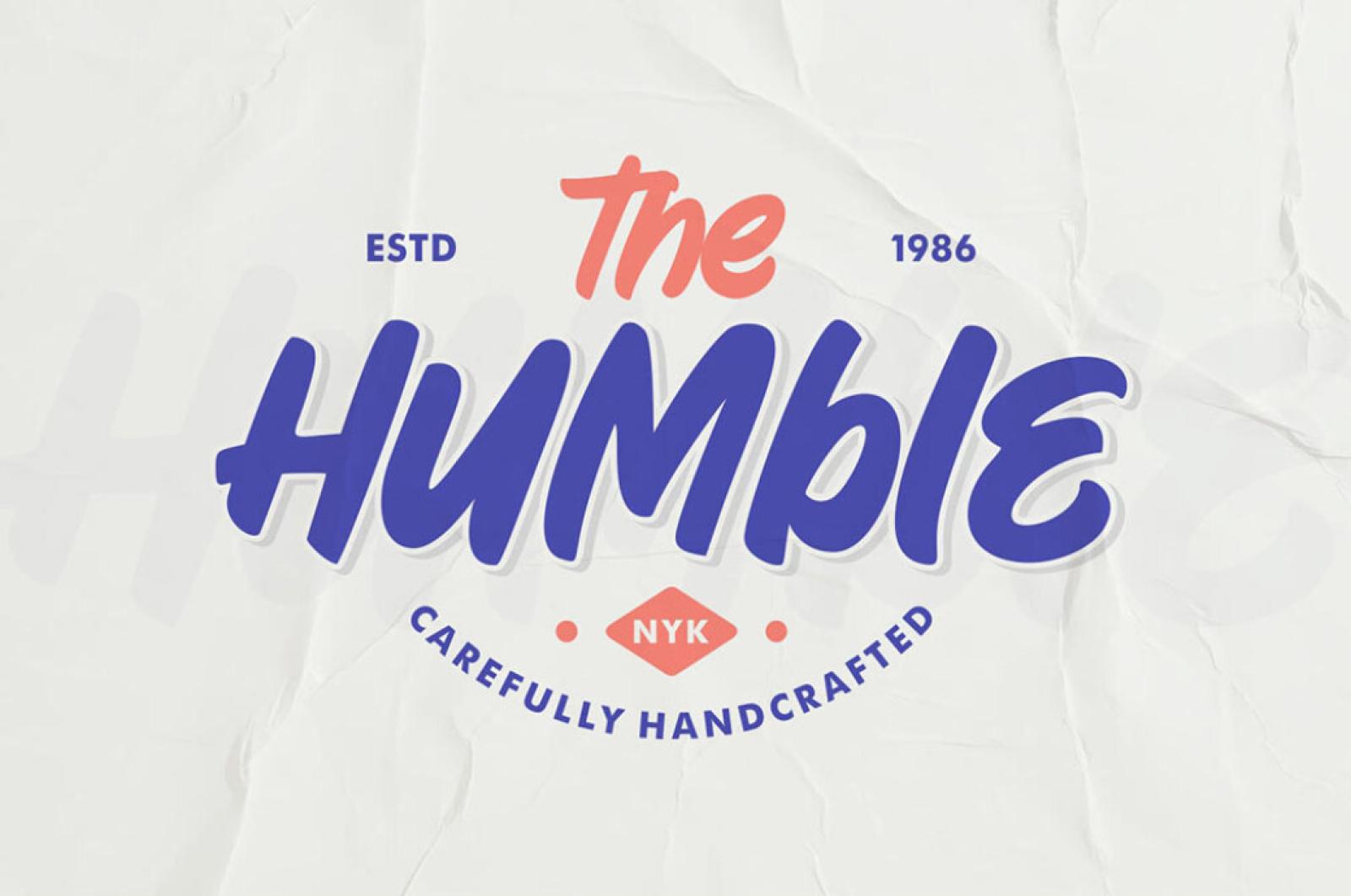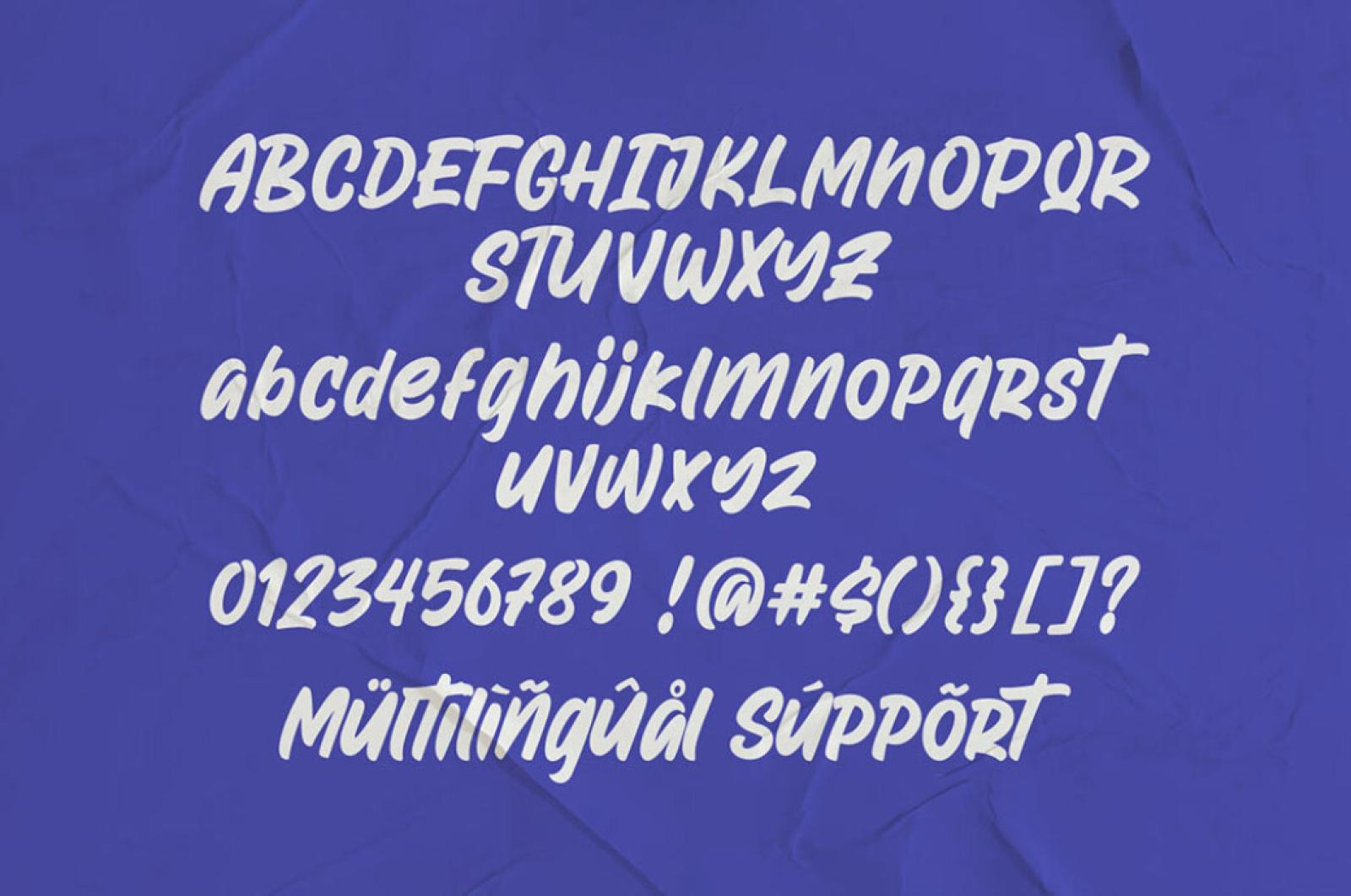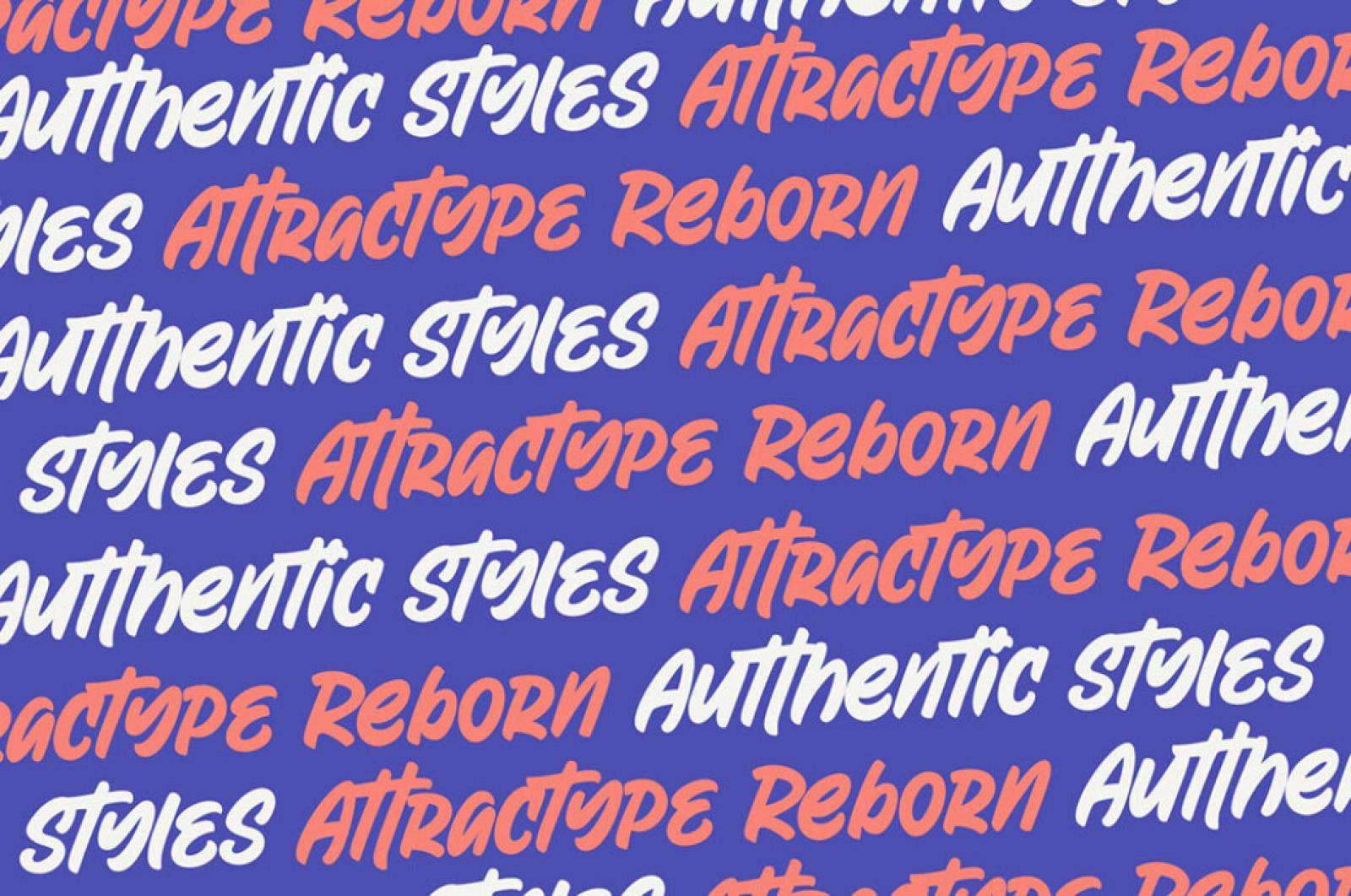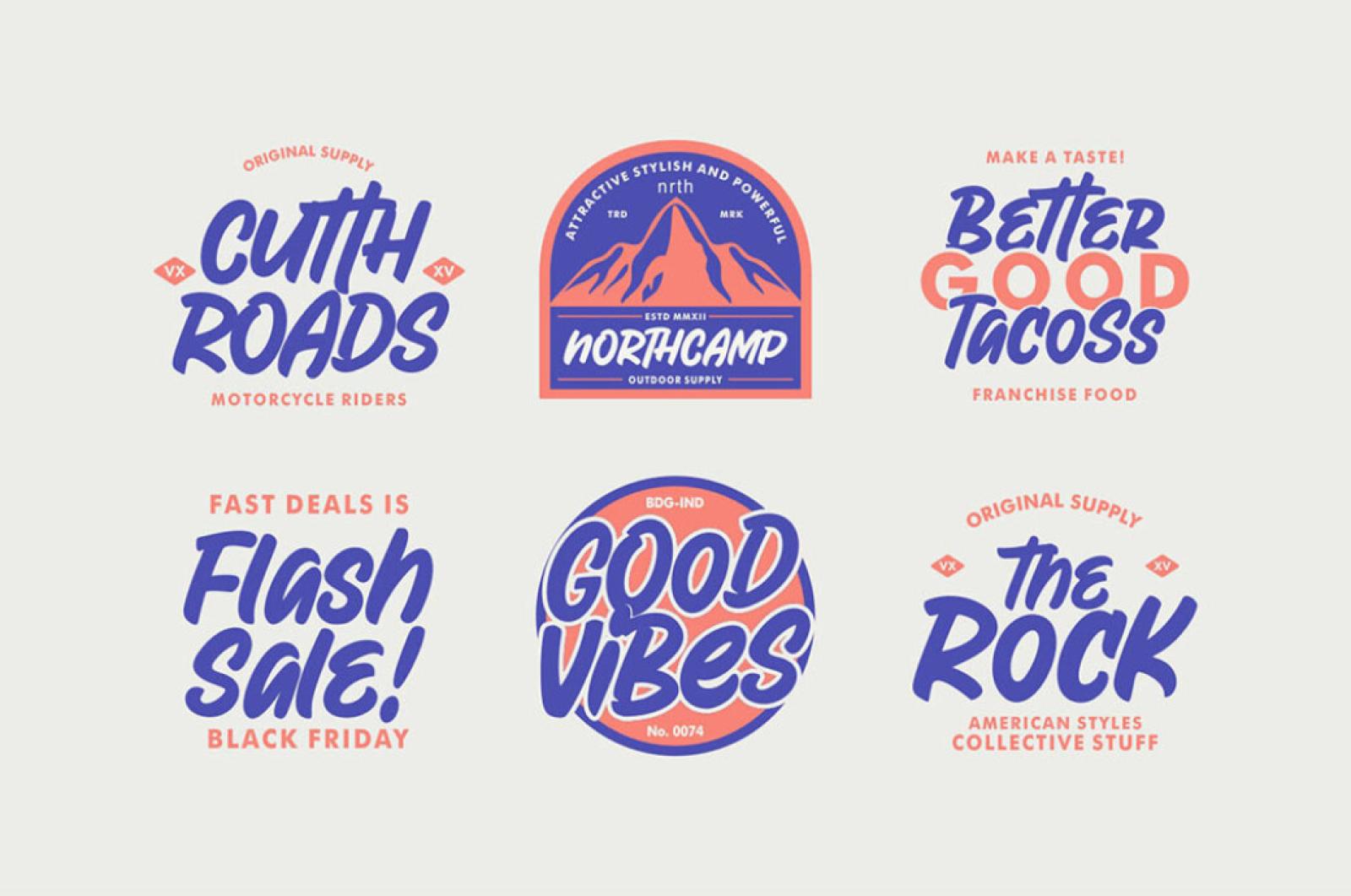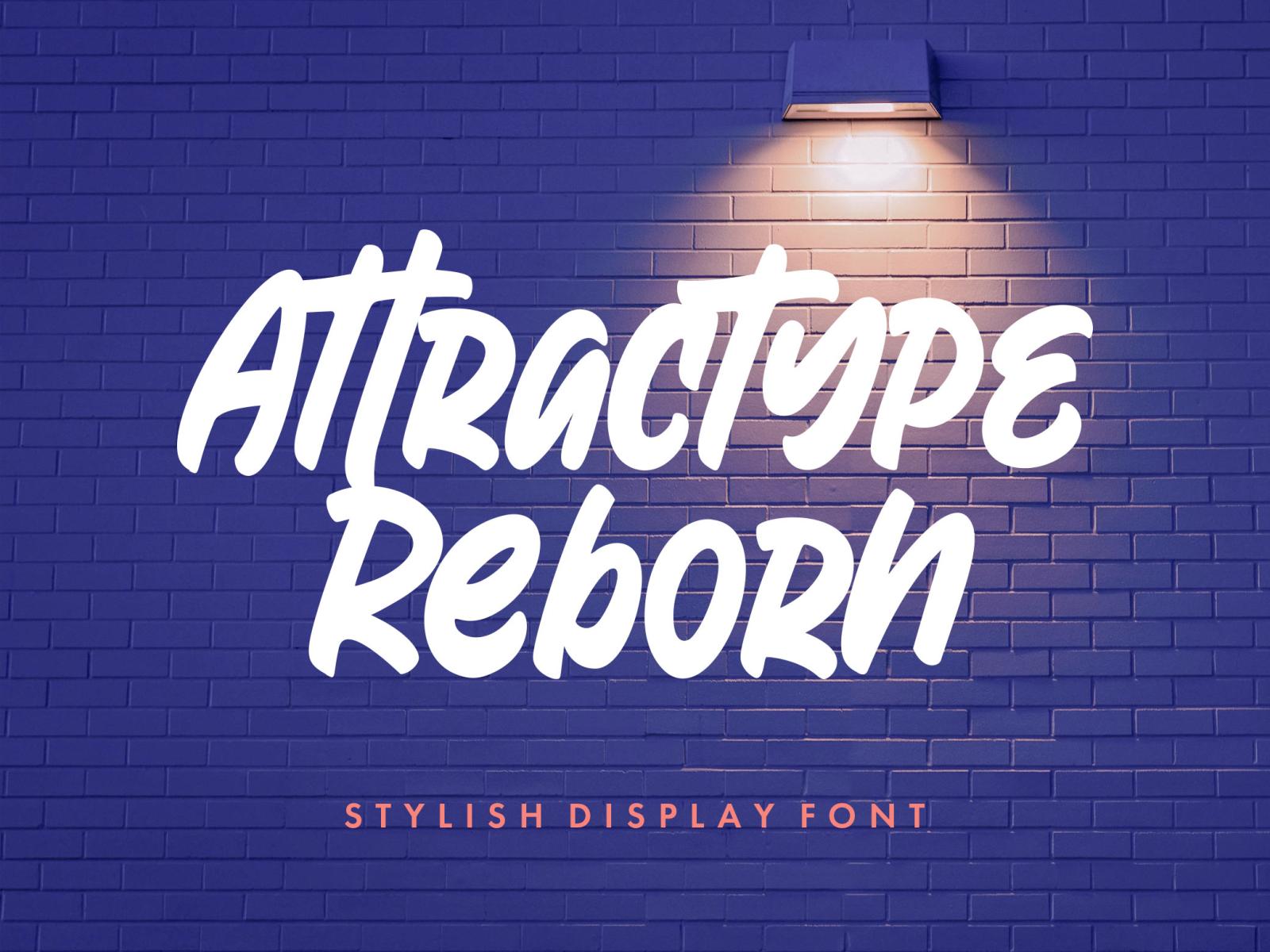
Reborn Display Font
Smooth lines with a little touch of color marker embraced into the display font. The vibrant typographic impression is achieved through a nicely-arranged group of characters.
Attractype Reborn combines attractive curves with a fresh urban edge, delivering a stylish script that is guaranteed to add an eye-catching appeal to your logo designs, brand imagery, quotes, product packaging, merchandise & social media posts. The typeface is armed with uppercase and lowercase, ligatures, and is easy to install, aside from everything else, It's the typeface which will make your designs reborn into something magnificent!